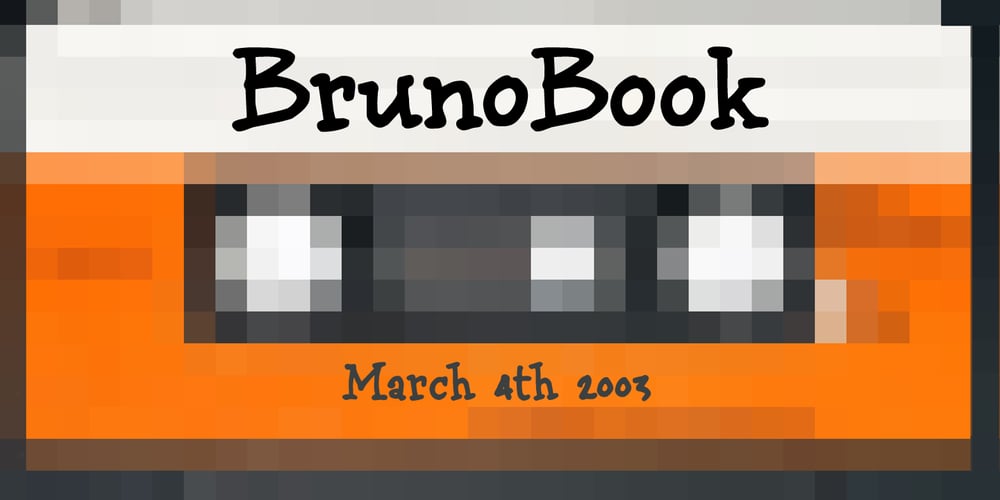
BrunoBook
BrunoBook font
BrunoBook Font Family was designed by Jeroen “Joebob” van der Ham and published by JOEBOB graphics. BrunoBook contains 1 styles and family package options. Stop using Times new Roman in children’s books! BrunoBook is here to stay. A complete character set with numbers and most (but not all) special signs.